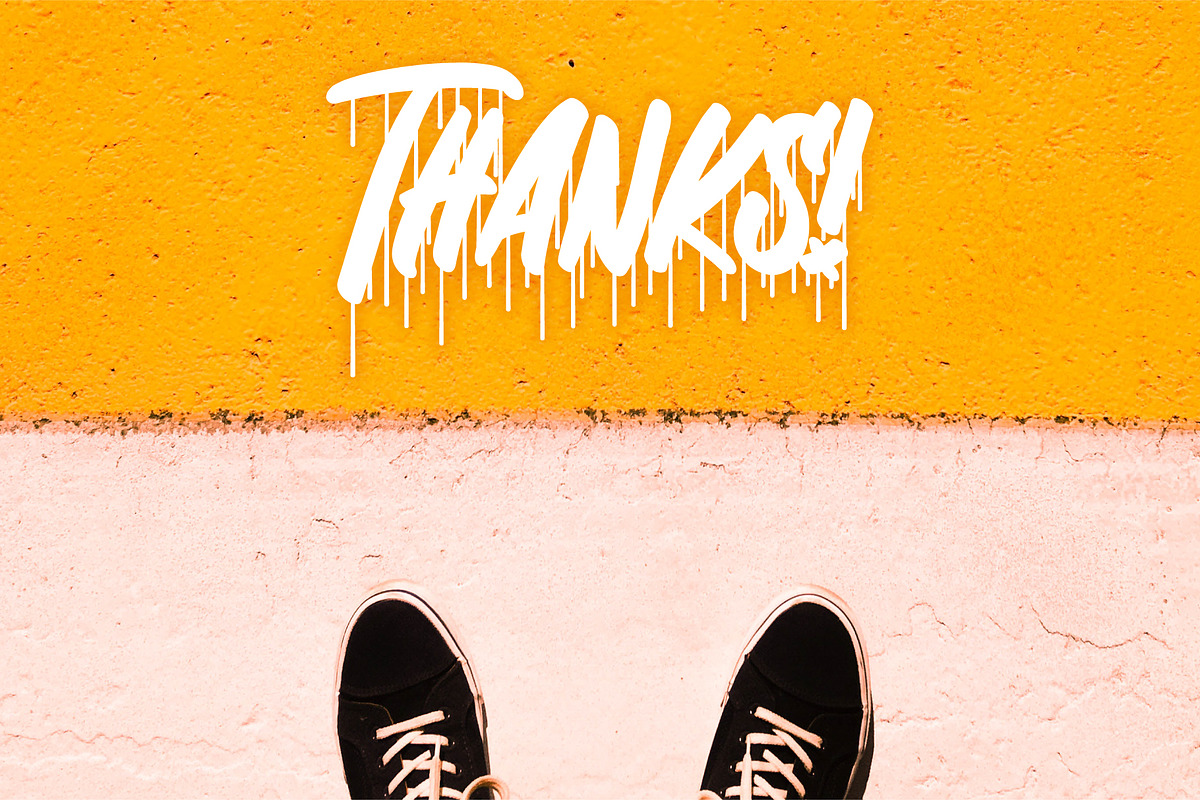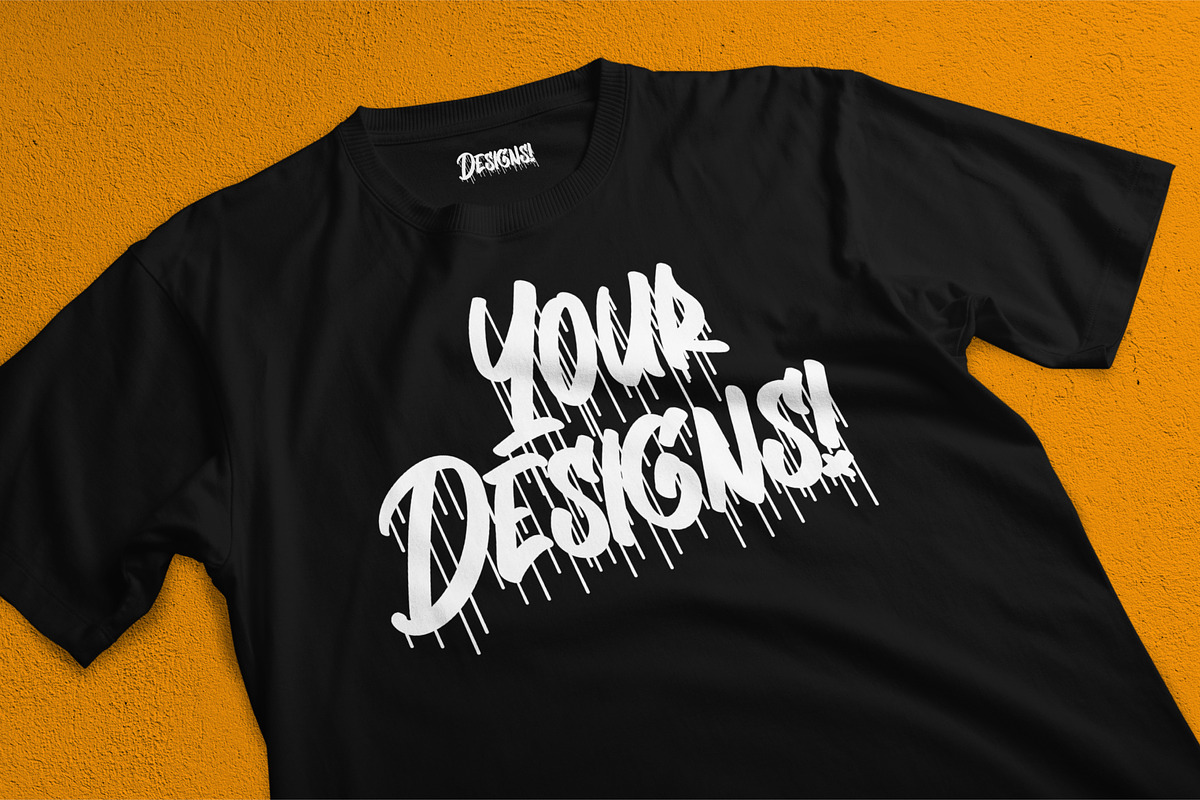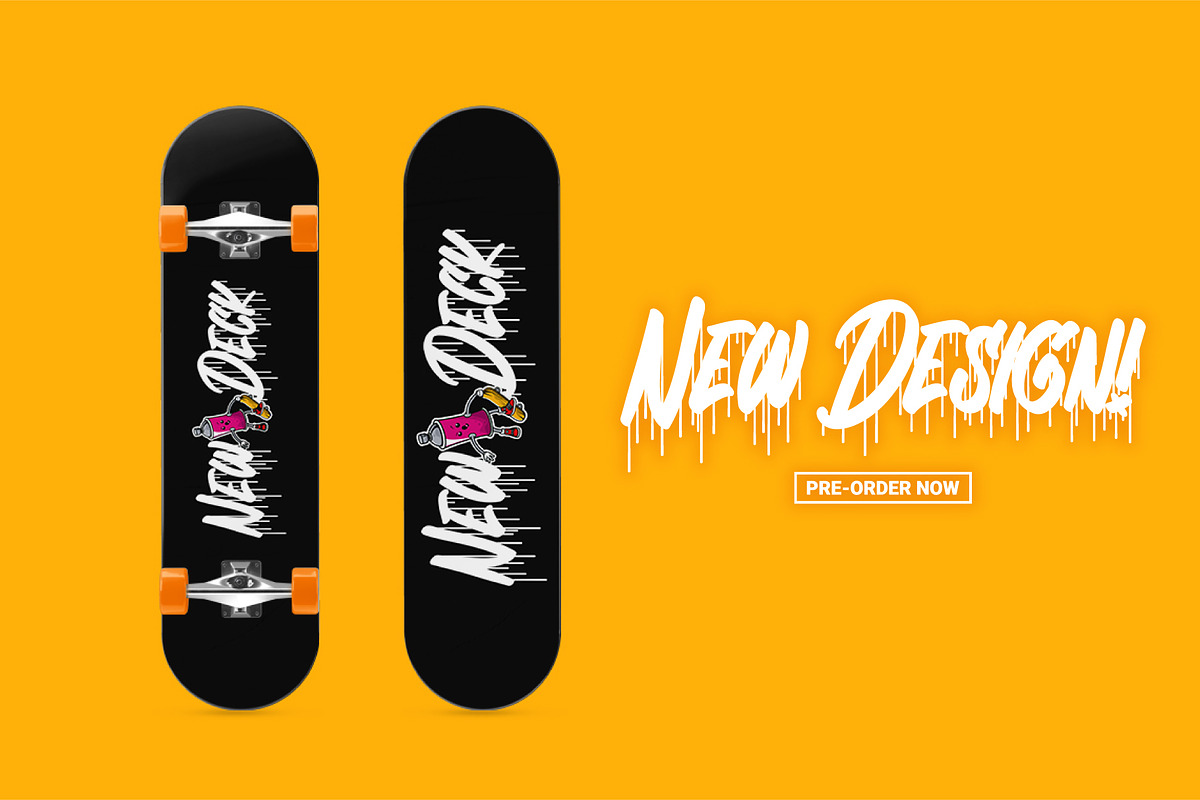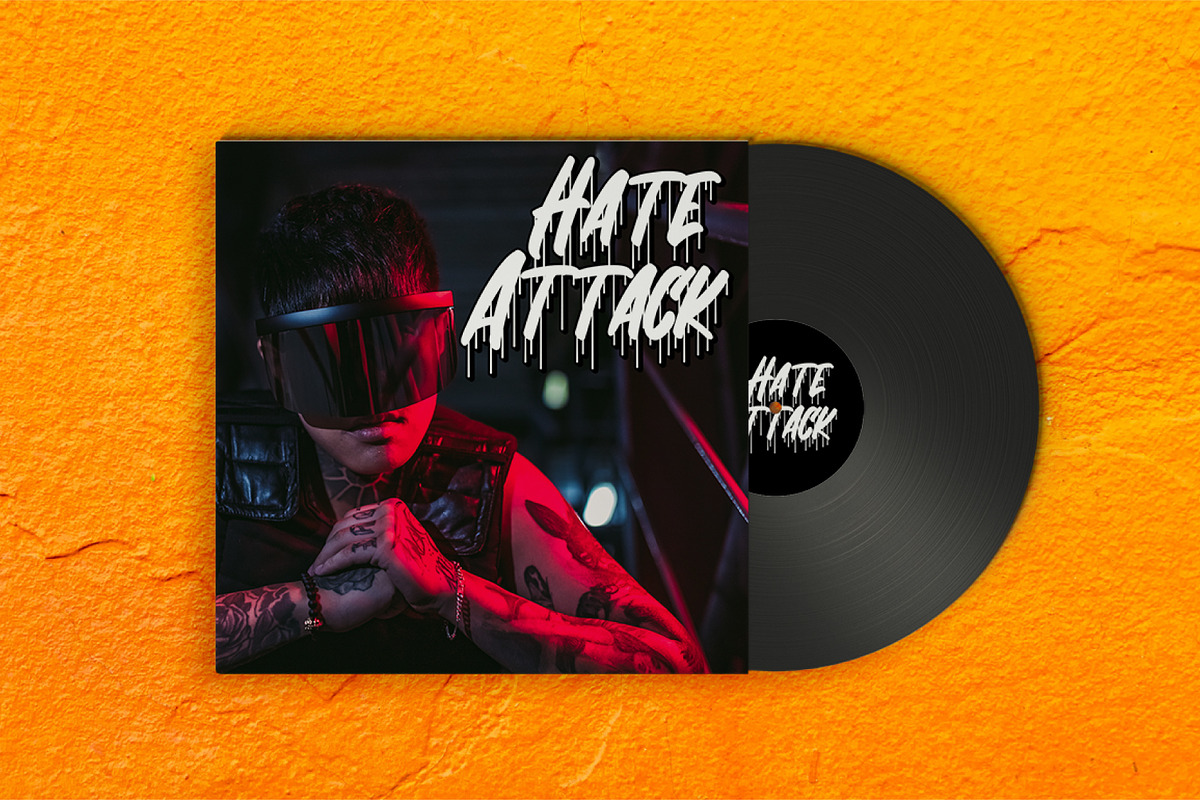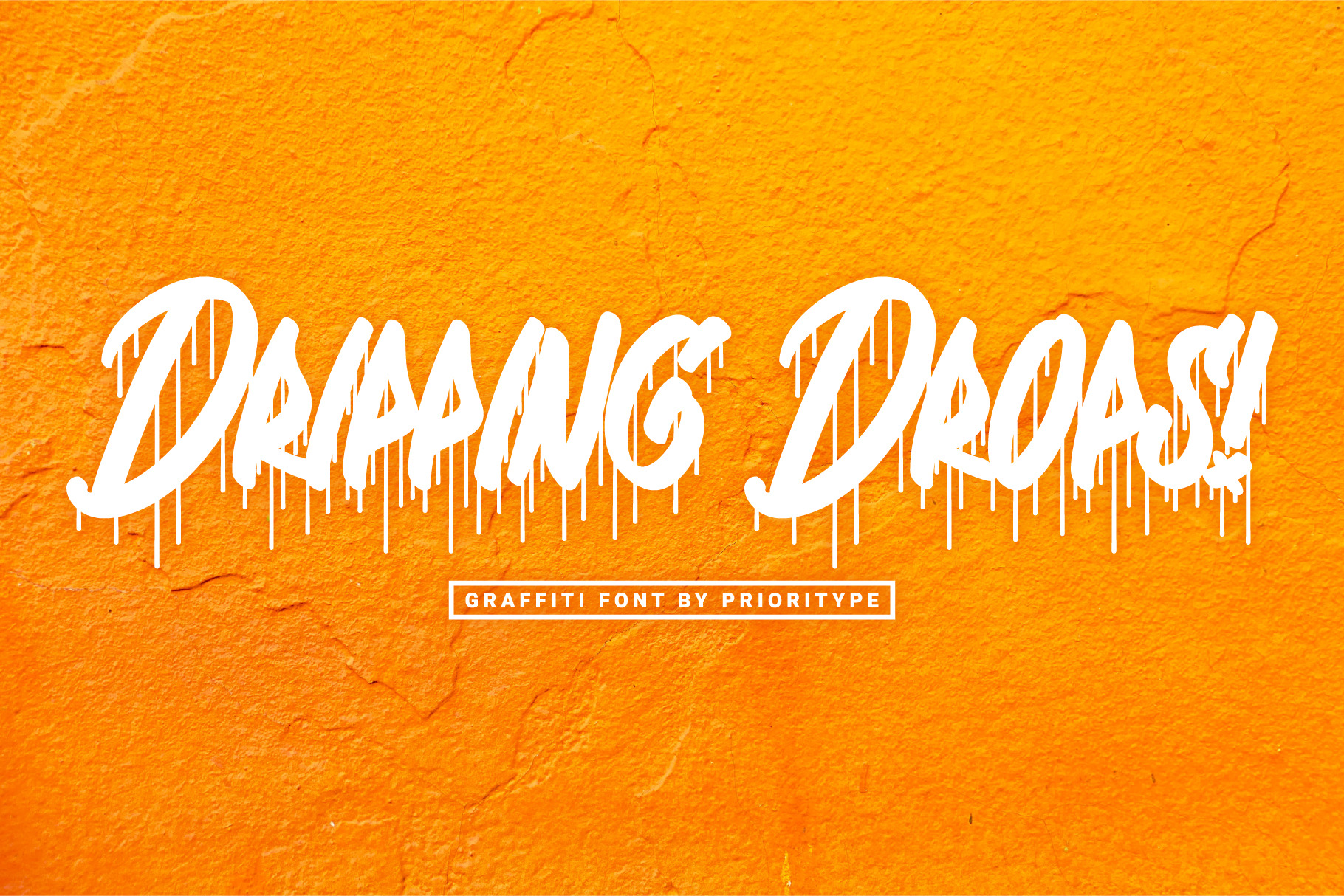
Dripping Drops - Graffiti Font
Inspired by paint dripping and combined with the graffiti artist culture, this font is both eye-catching and character. You can use them in your designs such as posters, skateboard boards, merchandise, music covers, t-shirts, music events etc.